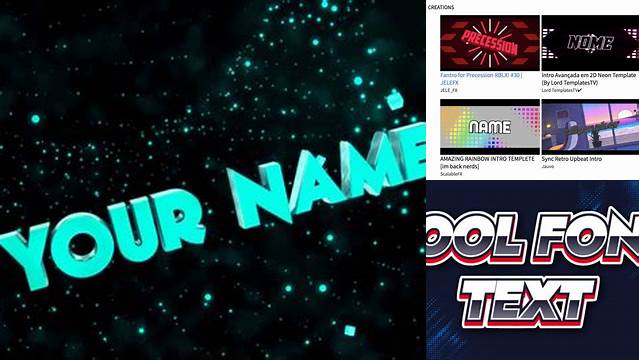
Cool Fonts For Intros: Make Your Content Shine
Hey guys! Ever wondered how to make your intros super captivating? It all starts with the right font! The font you choose can set the entire tone for your content, whether it's a YouTube video, a presentation, or a social media post. Let’s dive into some cool fonts for intros that will grab your audience's attention and keep them hooked. In this guide, we’ll explore different font styles, where to find them, and tips on how to use them effectively. So, let’s get started and turn those intros into something amazing!
Why Fonts Matter in Intros
Your intro is the first impression you make, and as they say, first impressions are everything! The font you select plays a crucial role in conveying your message and personality. Think about it: a playful, bubbly font might be perfect for a kids' channel, but it wouldn't quite cut it for a serious documentary. Cool fonts for intros are more than just aesthetics; they're about communication.
Setting the Tone and Mood
Fonts have the power to evoke emotions and set the mood right from the get-go. A bold, strong font can convey confidence and authority, while a softer, more elegant font might suggest sophistication and grace. Consider your content’s theme and the emotions you want to elicit. For instance, if you’re creating a gaming intro, a futuristic or edgy font could be the perfect fit. On the other hand, if you're working on a tutorial, a clean and readable font will ensure your message gets across clearly. It’s about aligning your font choice with your content's overall vibe. The right cool fonts for intros can make all the difference, ensuring your audience is immediately tuned in to what you have to say.
Enhancing Brand Identity
Consistency is key when it comes to branding. Using the same font (or a cohesive set of fonts) across all your content helps to build brand recognition. Think of some of the biggest brands out there – their logos and visual elements are instantly recognizable, partly because of their consistent use of typography. When choosing cool fonts for intros, consider how they fit into your broader brand identity. Are they in line with your logo, website, and other marketing materials? A unified look and feel can make your brand more memorable and professional. By carefully selecting and consistently using specific fonts, you’re reinforcing your brand identity with every piece of content you create. So, choose wisely and make your mark!
Improving Readability and Engagement
While it’s tempting to go for the most unique and eye-catching font out there, readability should always be a top priority. If your audience can’t easily read your intro text, they’re likely to tune out, no matter how cool your font looks. Cool fonts for intros need to strike a balance between style and legibility. Opt for fonts that are clear and easy on the eyes, especially if your intro text is displayed for a short amount of time. A readable font ensures that your message is communicated effectively and that your audience stays engaged. Think about the context – where will your intro be displayed? Is it on a small screen or a large one? Adjust your font size and style accordingly to maximize readability and keep your viewers hooked.
Top Font Styles for Intros
Okay, so we know why fonts are important, but what are some specific styles that work well for intros? There’s a whole world of typography out there, and it can be a bit overwhelming. Let’s break down some popular categories and give you some awesome examples of cool fonts for intros that you can start using right away.
Bold and Impactful Fonts
If you want to make a statement right from the start, bold and impactful fonts are the way to go. These fonts command attention and convey confidence. They're perfect for intros that need to pack a punch and leave a lasting impression. Imagine a documentary intro using a strong, sans-serif font, or a gaming channel intro with a futuristic, blocky typeface. Bold fonts are versatile and can work across various content types, making them a staple in any creator's toolkit. When choosing cool fonts for intros that are bold, consider the overall aesthetic you’re aiming for – do you want something sleek and modern, or rugged and edgy? The key is to find a font that not only stands out but also complements your content’s theme.
Examples and Use Cases
- Bebas Neue: This is a super popular sans-serif font that's tall, clean, and perfect for headlines. It’s a go-to for many YouTubers and content creators who want a modern, professional look.
- Montserrat: Another excellent sans-serif option, Montserrat has a geometric feel that's both stylish and readable. It works well for a variety of intros, from tech reviews to travel vlogs.
- Impact: As the name suggests, Impact is a bold, condensed font that really grabs your attention. It’s great for intros that need to be short, sweet, and memorable.
- Use Cases: These fonts are ideal for intros where you want to immediately convey authority, energy, or excitement. They work well for gaming videos, motivational content, business presentations, and anything that needs a strong visual kickoff.
Elegant and Stylish Fonts
For content that aims for sophistication and class, elegant and stylish fonts are a must. These fonts often feature graceful curves and fine details that add a touch of luxury. Think fashion blogs, wedding videos, or high-end product reviews. Cool fonts for intros in this category can elevate your content and give it a polished, professional feel. The key is to choose fonts that are both beautiful and readable, ensuring your message is delivered with style. When using elegant fonts, consider the color palette and overall design of your intro – these fonts often pair well with softer colors and minimalist layouts, creating a harmonious and visually appealing effect.
Examples and Use Cases
- Playfair Display: This serif font exudes elegance with its high contrast and refined letterforms. It’s perfect for intros that need a touch of class and sophistication.
- Lora: A well-balanced serif font that’s both readable and stylish, Lora is a great choice for intros that require a more classic, timeless look.
- Great Vibes: This script font is all about flow and grace, making it ideal for intros that need a personal, handwritten touch. It’s particularly popular for wedding videos and romantic content.
- Use Cases: These fonts are perfect for intros that need a touch of class and sophistication. Think fashion blogs, wedding videos, beauty tutorials, and luxury product reviews. They add a layer of refinement and can make your content feel more premium.
Playful and Creative Fonts
If your content is fun, lighthearted, and aimed at a younger audience, playful and creative fonts are the way to go. These fonts can add personality and a sense of whimsy to your intros, making them more engaging and memorable. Cool fonts for intros in this category often feature unique shapes, quirky details, and a generally less formal feel. Think kids' channels, animated videos, or vlogs with a fun, casual vibe. The key is to choose fonts that reflect the playful nature of your content without sacrificing readability. When using creative fonts, consider how they pair with other visual elements in your intro – bright colors, fun animations, and dynamic backgrounds can all complement a playful font and create a cohesive, eye-catching intro.
Examples and Use Cases
- Bubblegum Sans: This font is bubbly, rounded, and full of personality. It’s perfect for kids' channels and content that needs a cheerful, friendly vibe.
- Luckiest Guy: A bold, hand-drawn font that’s both fun and easy to read, Luckiest Guy is great for intros that need a casual, approachable feel.
- Amatic SC: This condensed, hand-drawn font has a playful, quirky charm that works well for a variety of creative projects.
- Use Cases: These fonts are perfect for intros that aim to be fun, lighthearted, and engaging. Think kids' channels, animated videos, casual vlogs, and creative projects that need a touch of whimsy. They help set a positive, energetic tone right from the start.
Modern and Minimalist Fonts
For a sleek, contemporary look, modern and minimalist fonts are an excellent choice. These fonts often feature clean lines, simple shapes, and a no-fuss aesthetic. They’re perfect for tech reviews, tutorials, and content that aims for a professional, uncluttered feel. Cool fonts for intros in this category convey a sense of sophistication and efficiency. They work well in a variety of contexts, from corporate videos to personal branding. The key is to choose fonts that are both stylish and highly readable, ensuring your message is delivered clearly and effectively. When using minimalist fonts, consider the overall design of your intro – a clean layout, subtle animations, and a muted color palette can all enhance the modern aesthetic and create a polished, professional intro.
Examples and Use Cases
- Roboto: This sans-serif font is clean, modern, and highly readable. It’s a versatile choice that works well for a variety of intros, from tech reviews to corporate videos.
- Open Sans: Another excellent sans-serif option, Open Sans is known for its friendly appearance and high legibility. It’s a great choice for tutorials and educational content.
- Lato: This sans-serif font has a sleek, contemporary feel that’s perfect for intros that aim for a minimalist aesthetic.
- Use Cases: These fonts are ideal for intros that need to convey a sense of modernity, professionalism, and clarity. Think tech reviews, tutorials, corporate videos, and content that aims for a sleek, uncluttered look. They help set a tone of competence and efficiency right from the start.
Where to Find Cool Fonts
Now that you've got a good idea of the types of fonts you might want to use, let's talk about where you can actually find them. There are tons of resources out there, both free and paid, so you're sure to find something that fits your needs and budget. Finding cool fonts for intros can be an adventure in itself, with so many options available. Here are some of the best places to start your search and discover the perfect typography for your projects.
Google Fonts is a fantastic resource for free, high-quality fonts. It’s a go-to for many designers and content creators because of its vast library and easy-to-use interface. You can browse fonts by category, style, and popularity, making it simple to find exactly what you’re looking for. Plus, all the fonts on Google Fonts are open source, which means you can use them for both personal and commercial projects without any licensing hassles. This makes it an incredibly valuable tool for anyone looking for cool fonts for intros without breaking the bank. The integration with Google Docs and other Google services is another major perk, allowing you to seamlessly incorporate your favorite fonts into your workflow.
Adobe Fonts
If you're an Adobe Creative Cloud subscriber, you have access to Adobe Fonts, a massive library of fonts that are included with your subscription. Adobe Fonts offers a wide range of styles and types, from classic serif fonts to modern sans-serifs, and everything in between. The best part is that these fonts are professionally designed and licensed for commercial use, so you can use them in your projects with confidence. Adobe Fonts also integrates seamlessly with Adobe Creative Cloud apps like Photoshop and Illustrator, making it easy to experiment with different typefaces and create stunning visuals. For those serious about typography, Adobe Fonts is an invaluable resource for finding cool fonts for intros and more.
DaFont is a popular website that offers a huge selection of free fonts, many of which are perfect for intros. It’s a great place to find unique and creative fonts that you won’t see everywhere else. The site is organized into categories like fancy, cartoon, gothic, and more, making it easy to browse and discover new typefaces. However, it’s important to note that the licensing terms for fonts on DaFont can vary, so you should always check the license before using a font in a commercial project. Despite this, DaFont remains a valuable resource for anyone looking for cool fonts for intros and wanting to explore a wide range of styles and designs.
Creative Market
Creative Market is a marketplace for design assets, including fonts. Here, you’ll find a mix of free and premium fonts, often created by independent designers. This makes Creative Market a great place to discover unique and high-quality typefaces that can really make your intros stand out. While you may need to pay for some of the fonts, the investment can be worth it if you’re looking for something truly special. Creative Market also offers bundles and deals, so you can often get a great price on a collection of fonts. For those seeking cool fonts for intros with a touch of individuality and craftsmanship, Creative Market is definitely worth exploring.
Tips for Using Fonts Effectively in Intros
Okay, you've got your font, now what? Just slapping it on the screen isn't going to cut it. Using fonts effectively in intros is an art, and there are a few key principles to keep in mind. To truly elevate your intros, it’s essential to know how to use fonts effectively. It's not just about picking cool fonts for intros; it's about how you implement them. Let’s go through some practical tips to help you make the most of your typography and ensure your intros are visually stunning and engaging.
Pair Fonts Wisely
Font pairing is the art of combining different typefaces to create a harmonious and visually appealing look. A common rule of thumb is to pair a serif font with a sans-serif font, as the contrast can be pleasing to the eye. However, there are no hard and fast rules, and you can certainly experiment with other combinations. The key is to ensure that the fonts complement each other rather than clash. For example, you might use a bold sans-serif font for your main title and a more elegant serif font for your tagline. When selecting cool fonts for intros, think about how they will work together to create a cohesive and polished design. A well-paired font combination can add depth and visual interest to your intro, making it more memorable and professional.
Consider Font Size and Placement
The size and placement of your font can have a big impact on readability and overall visual appeal. Make sure your font is large enough to be easily read, especially on smaller screens. Consider the screen resolution and viewing distance when choosing your font size. Placement is also crucial – avoid placing text too close to the edges of the screen, and make sure it doesn’t overlap with other elements in your intro. Experiment with different layouts and positions to find what works best for your chosen font and background. When using cool fonts for intros, it's important to strike a balance between making a statement and ensuring clarity. The goal is to create an intro that is both visually striking and easy to understand.
Use Color and Effects to Enhance Your Fonts
Color and effects can add depth and visual interest to your fonts, making them pop and grab attention. Experiment with different color combinations to find what works best for your brand and content. Consider using effects like shadows, glows, and gradients to make your text stand out. However, be careful not to overdo it – too many effects can make your intro look cluttered and unprofessional. The key is to use color and effects subtly to enhance your chosen font, not distract from it. When selecting cool fonts for intros, think about how color and effects can complement the typeface and reinforce your overall message. A well-chosen color palette and subtle effects can elevate your intro and make it more visually appealing.
Keep It Consistent with Your Brand
Consistency is key when it comes to branding, and your font choices should align with your overall brand identity. Use the same fonts (or a cohesive set of fonts) across all your content to create a unified look and feel. This helps build brand recognition and makes your content more memorable. Consider your brand's personality and values when choosing fonts – are you going for a modern, professional look, or something more playful and creative? Your font choices should reflect your brand’s identity and help reinforce your message. When seeking cool fonts for intros, it's essential to ensure they fit within your brand guidelines. Maintaining consistency in typography will strengthen your brand and create a cohesive visual experience for your audience.
So, there you have it! A deep dive into the world of cool fonts for intros. Choosing the right font can make a huge difference in how your content is perceived, so take your time, experiment, and find what works best for you. Remember, it’s all about making that first impression count and setting the stage for awesome content. Happy creating, guys! Using the right fonts can transform your intros from ordinary to extraordinary. By considering the style, readability, and overall impact of your typography, you can create intros that captivate your audience and leave a lasting impression. So, go ahead and explore the world of fonts, and make your intros truly shine!